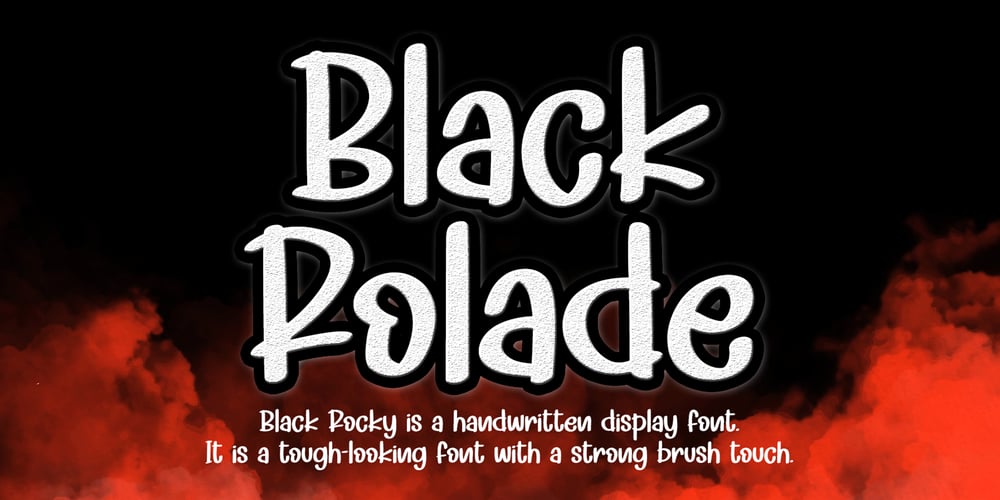
Black Rolade
Black Rolade font
Black Rolade Font Family was designed by Ahmad Afandi and published by Letterafandi Studio. Black Rolade contains 2 styles and family package options. Black Rolade is a handwritten display font. It is a tough-looking font with a strong brush touch, ready to rock every design you want to create. It is perfect for logos, quotes, posters, clothing, and so much more! Add it to any of your creative projects, and be amazed by the generated outcome!